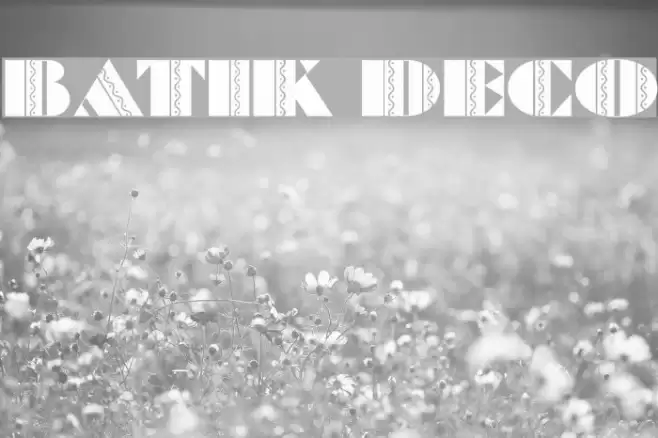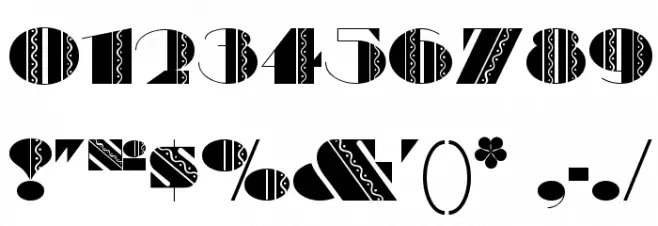
Batik Deco Font
Batik Deco Description
This font features a bold and decorative style with intricate patterns embedded within each character. The design incorporates elements reminiscent of traditional batik patterns, giving it a unique and artistic flair. The uppercase and lowercase letters maintain a consistent style, with geometric shapes and symmetrical patterns that create a visually striking appearance. The numbers and special characters are equally detailed, ensuring a cohesive look across all glyphs. This font is ideal for projects that require a touch of cultural elegance and artistic expression.
A bold, decorative font with intricate batik-inspired patterns from Uncategorized fonts.
- Proposed Projects: Ideal for cultural event posters, artistic branding, and decorative headlines.